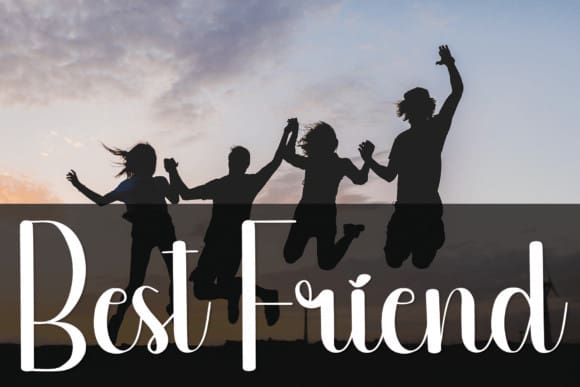
Petals Script Font
Petals Script Font is an enchanting handwritten font. This versatile script font has a wide spectrum of applications ranging from greeting cards to headlines and is guaranteed to add a romantic feel to your next project.